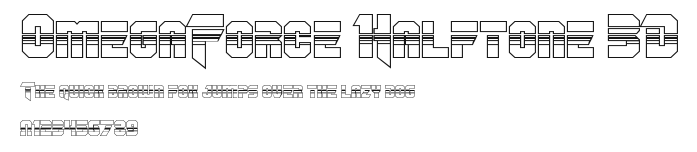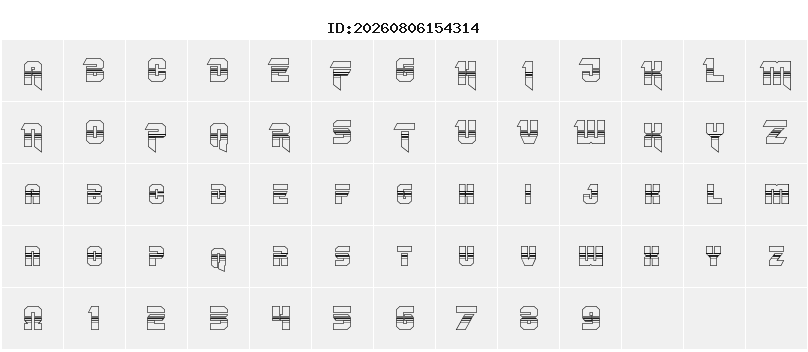
OmegaForce Halftone 3D Preview
• Font Name: OmegaForce Halftone 3D
• Full Font Name: OmegaForce Halftone 3D Regular
About OmegaForce Halftone 3D.ttf
OmegaForce Halftone 3D.ttf is a modern, elegant sans-serif font designed for ultimate readability and visual harmony. Perfect for branding, headlines, web design, and print materials.